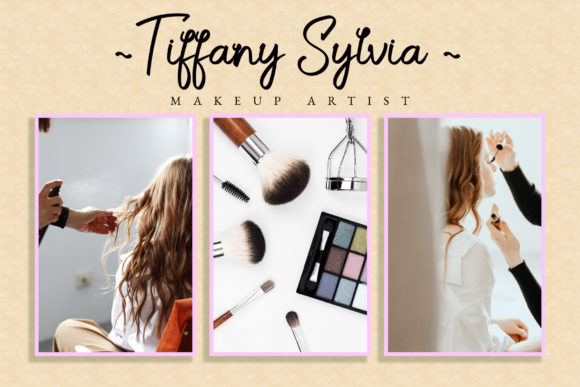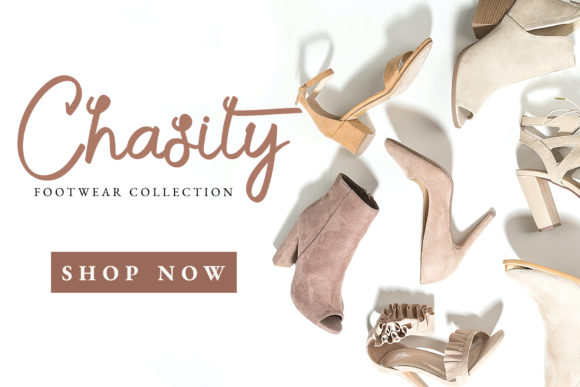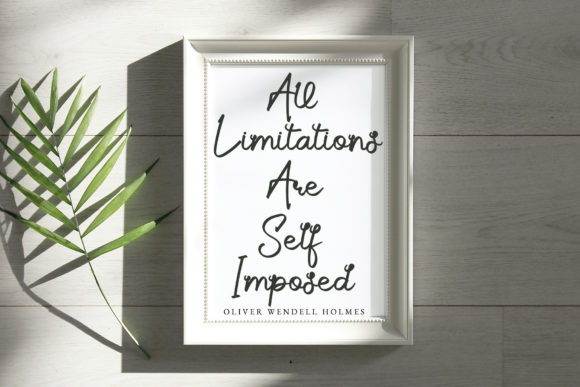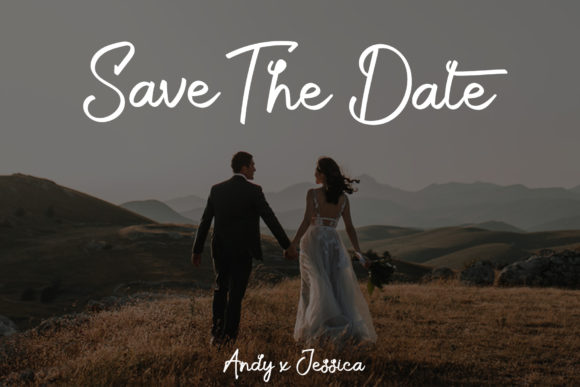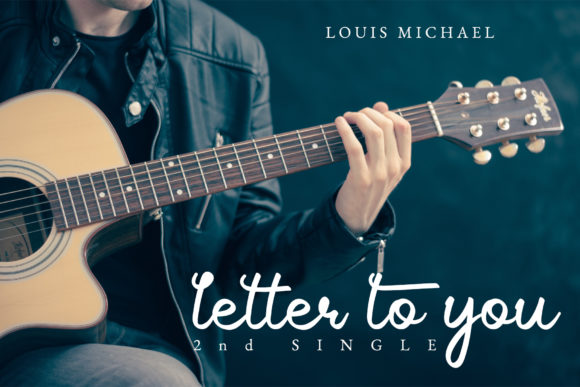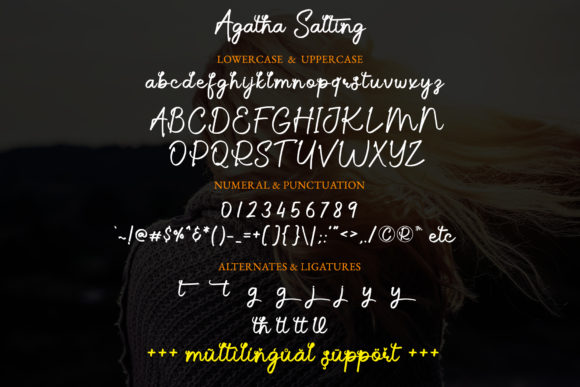
The Agatha Salting Font: Elevating Elegance in Design
I’ll never forget the time I was working on a branding project for a luxury wedding planner. My client wanted a sophisticated, high-end feel, but I was struggling to find the perfect font to capture that essence. That’s when I stumbled upon Agatha Salting, a stunning handwritten font that instantly elevated my design game. In this article, I’ll share my experience with Agatha Salting, its features, and how to make the most of it in your designs.
A Personal Review: What I Love About Agatha Salting
Agatha Salting is more than just a font – it’s an experience. Here are the things that I love about it:
- ✨ Elegant and sophisticated: Agatha Salting exudes luxury and refinement, making it perfect for high-end branding, wedding designs, and upscale marketing materials.
- ✅ Versatile: This font works beautifully in various contexts, from web design to print, and even moving images.
- 💫 Unique character: Agatha Salting has a distinct personality that sets it apart from other handwritten fonts.
While Agatha Salting is an exceptional font, there are a few things to keep in mind:
- 🤔 Legibility at small sizes: Like many script fonts, Agatha Salting can become tricky to read at very small sizes. Make sure to test it in your design to ensure it’s legible.
- ⚠️ Pairing with other fonts: As with any script font, pairing Agatha Salting with other fonts requires some care. Experiment with different combinations to find the perfect match.
The Story Behind Agatha Salting
Agatha Salting was designed with the intention of capturing the essence of elegant handwriting. Inspired by classic calligraphy and refined scripts, Agatha Salting brings a touch of luxury to any design. While the actual designer remains a mystery, their work speaks volumes about their passion for typography and beautiful letterforms.
| What makes Agatha Salting unique? | Agatha Salting stands out due to its elegant and sophisticated handwritten style, making it perfect for luxury branding and high-end designs. |
| Is Agatha Salting suitable for body text? | While Agatha Salting is beautiful, it’s best used for headlines and short paragraphs due to its script nature and potential legibility issues at small sizes. |
Agatha Salting is a remarkable font that can elevate your designs with its elegant and sophisticated style. Whether you’re working on a luxury brand, wedding design, or high-end marketing materials, Agatha Salting is sure to make a lasting impression.